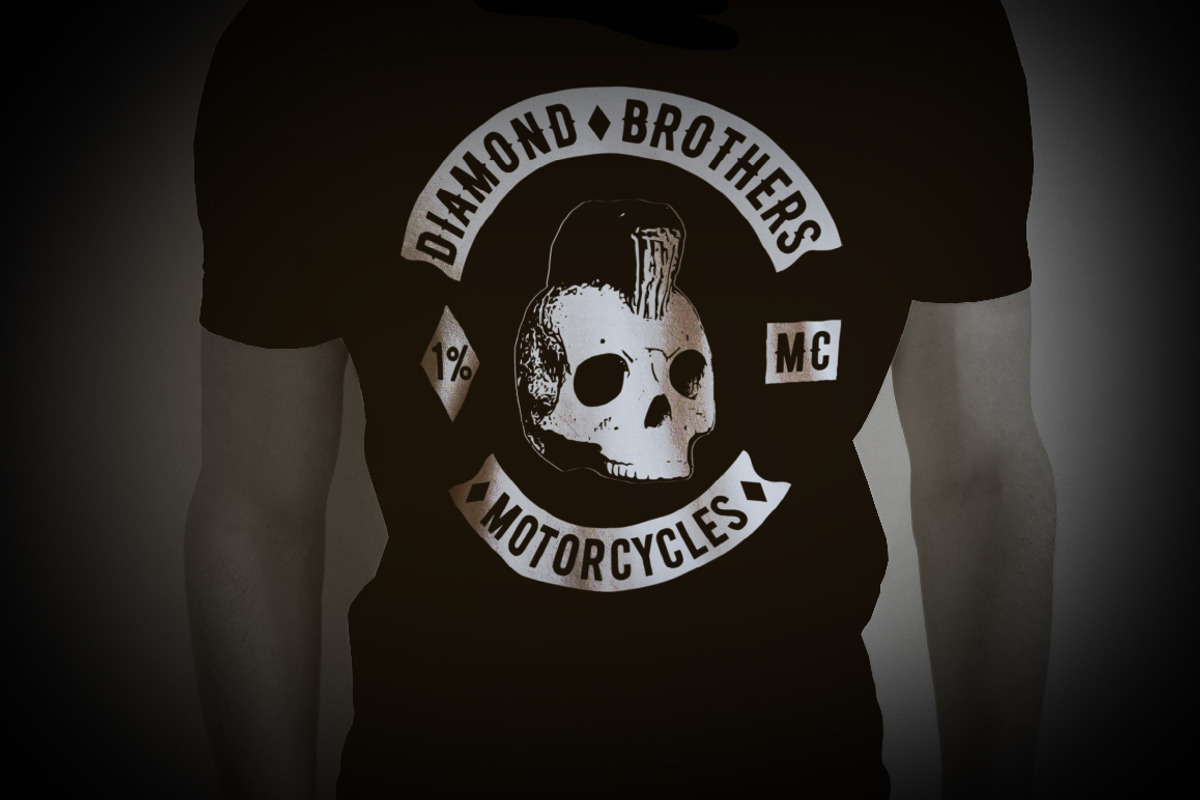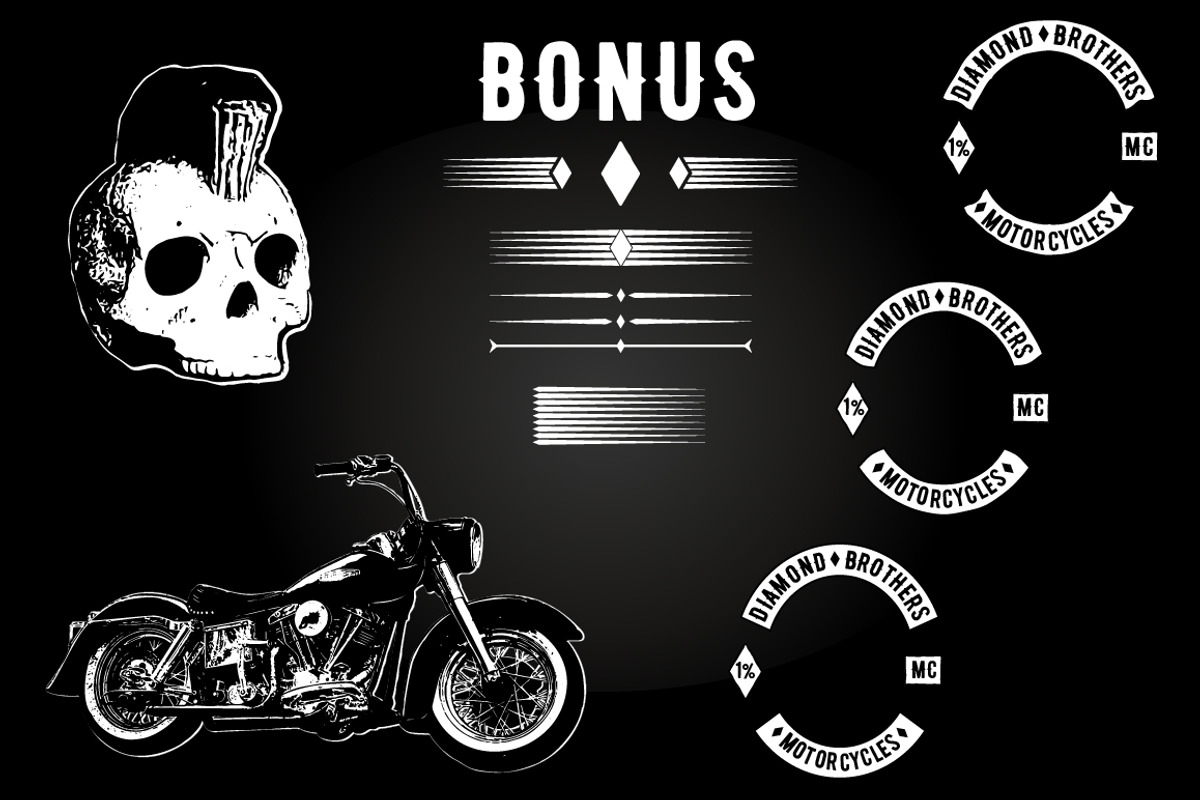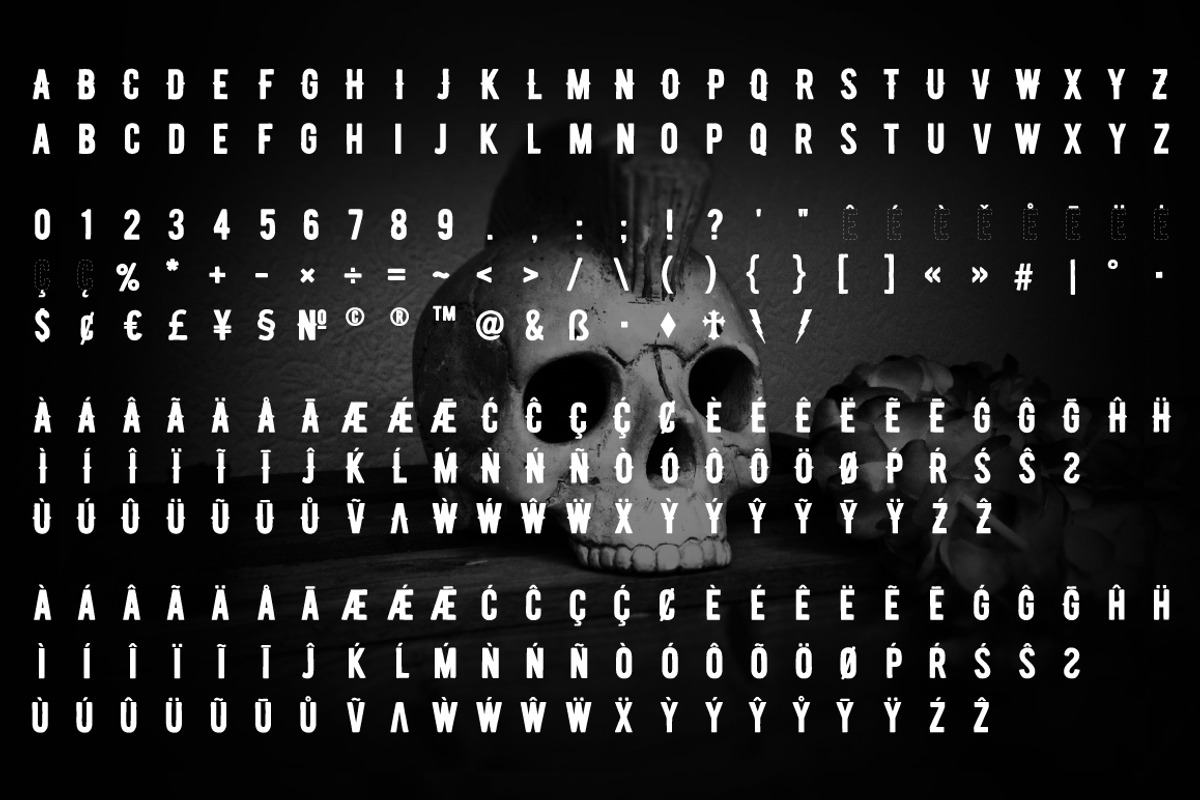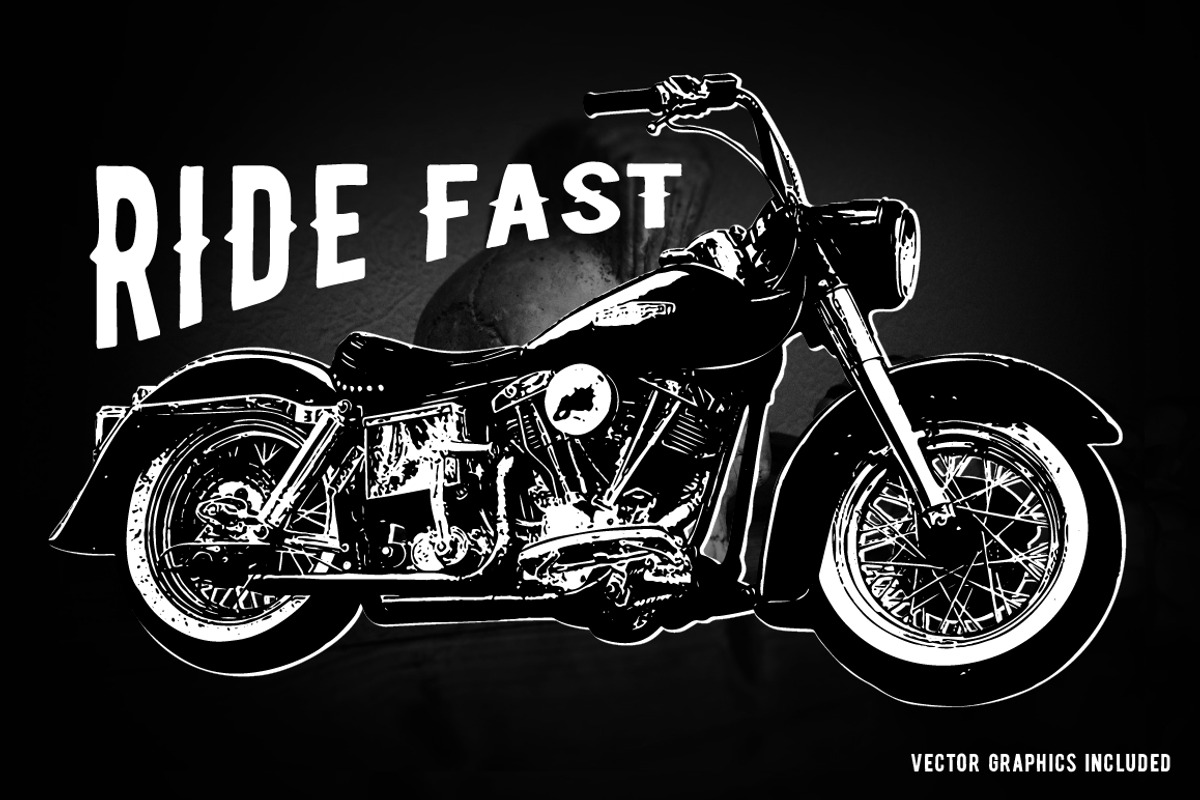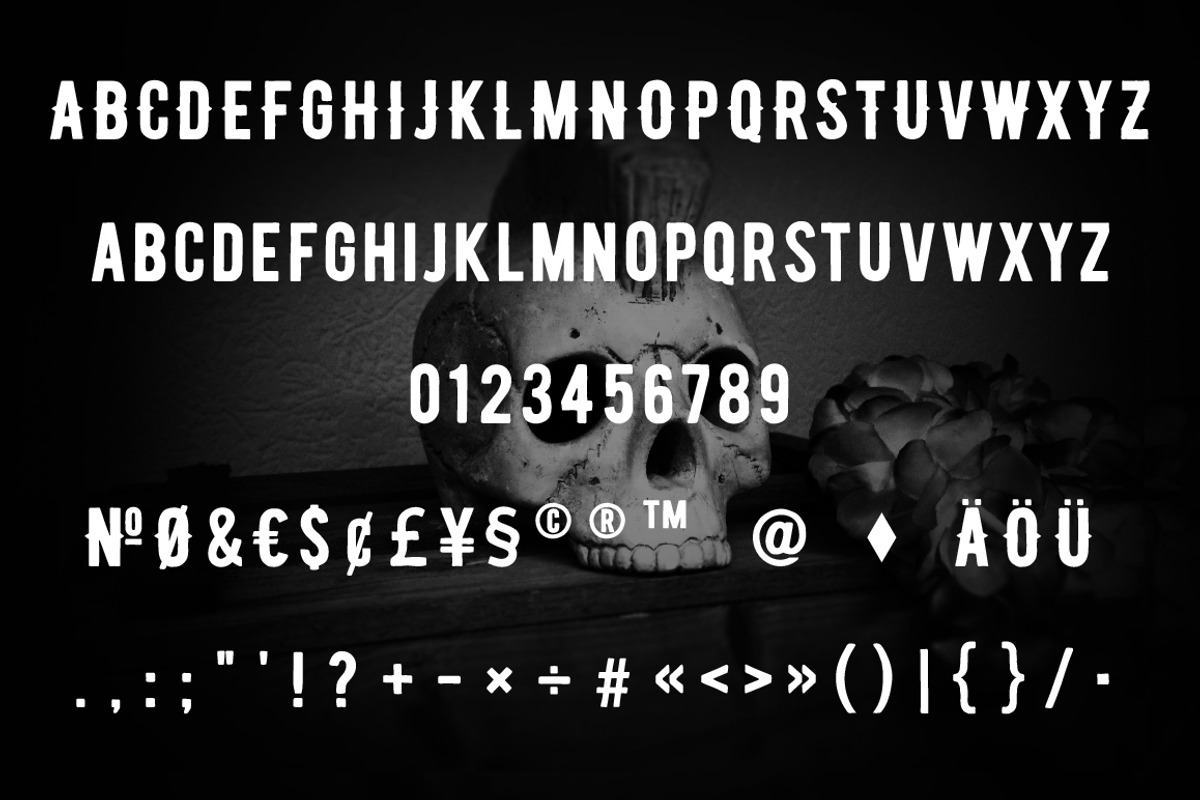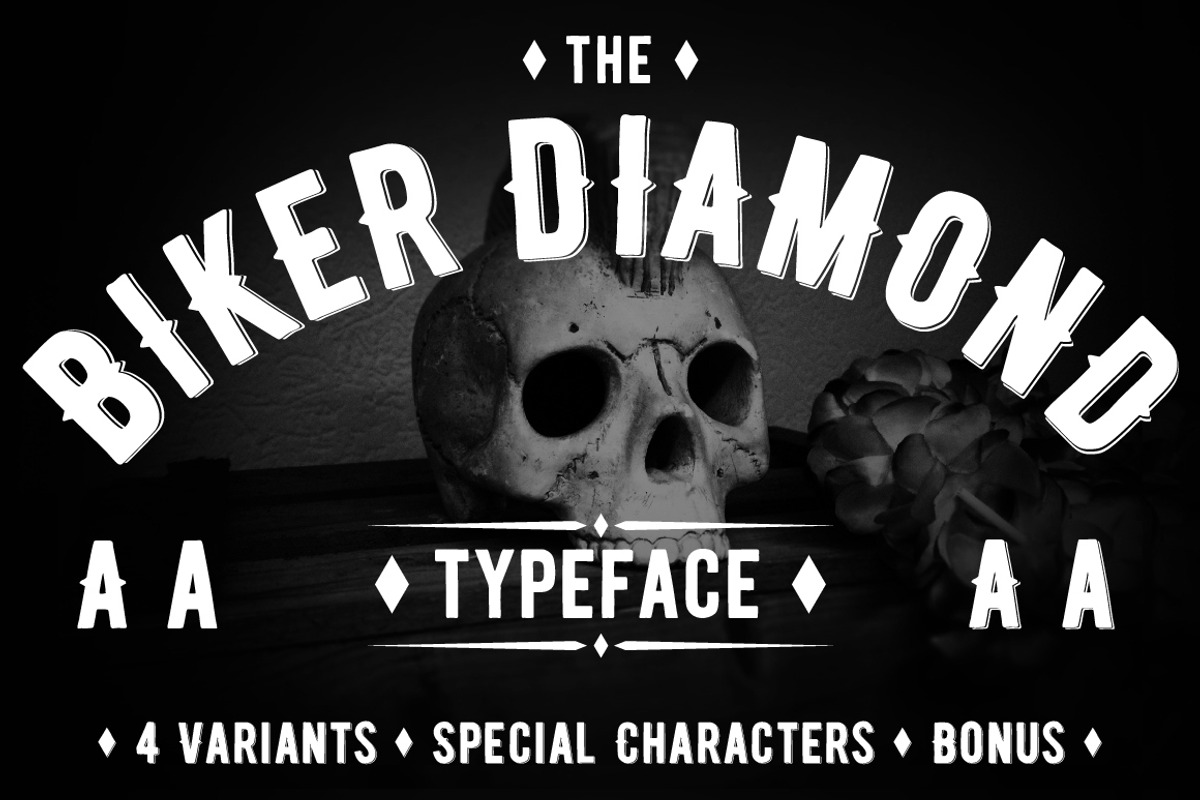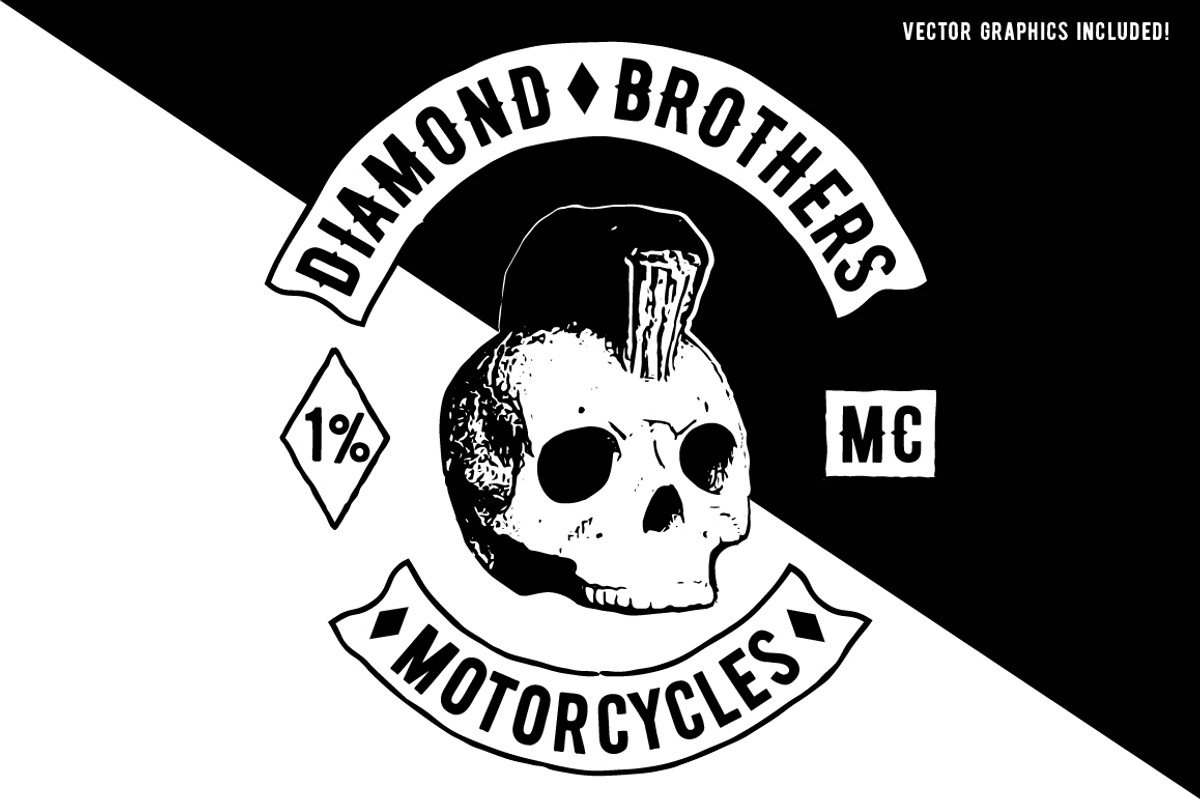
Biker Diamond Typeface
Hand Made Biker Style Font
Why Biker Diamond Typeface is worth a look
Biker Diamond Typeface by BAD TASTE fits naturally into Branding, posters, packaging, typography.